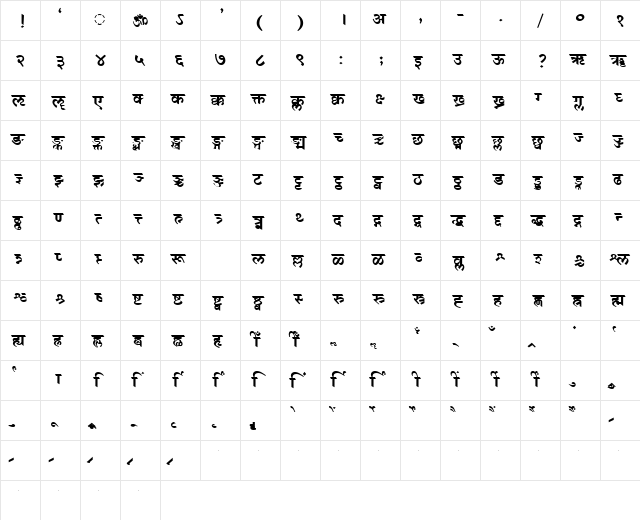
SD-TTSurekh Bold
Design Context for SD-TTSurekh Typeface
SD-TTSurekh is a composed and adaptable typeface that performs quietly and consistently across a wide range of design contexts. Its bold stroke weight gives it real presence on the page.